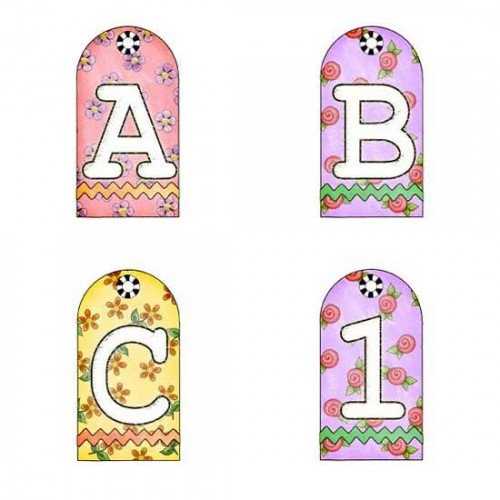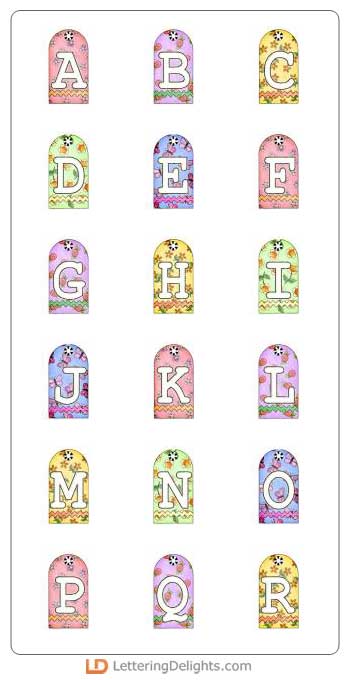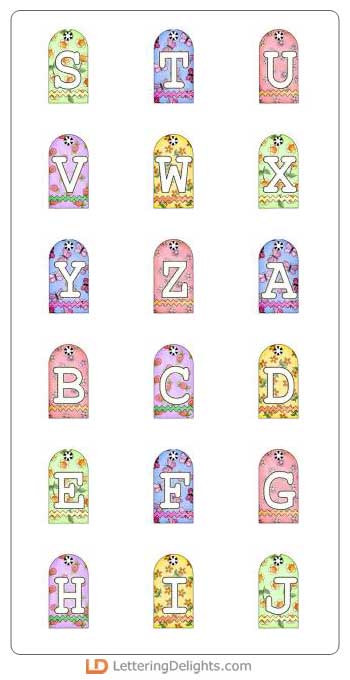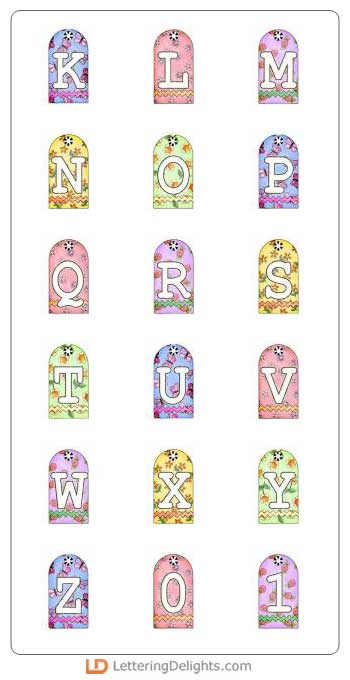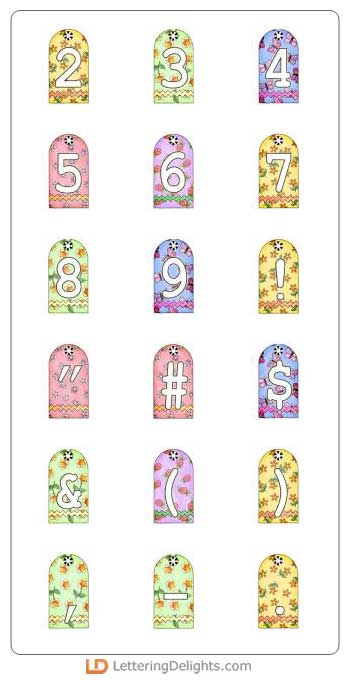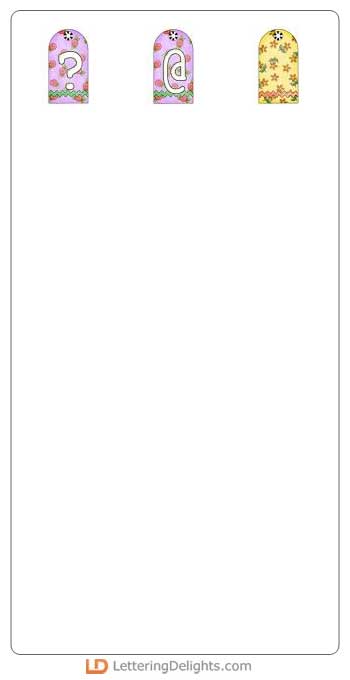
If you are into tags, this fanciful alphabet is for you. Create a bouquet of flower-laden paper crafts with these letters and numbers. They're perfect for little girl scrapbooking layouts as well.